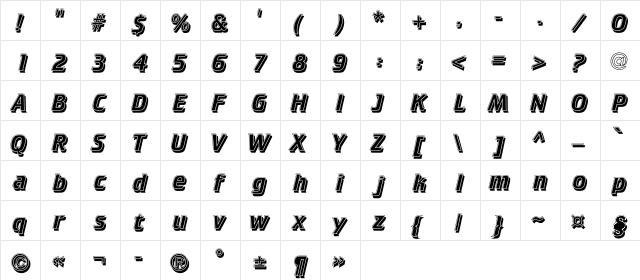
CricketInlineShadow Regular Font Preview
CricketInlineShadow Regular
Design Context for CricketInlineShadow Typeface
CricketInlineShadow is built around its visual character rather than neutral utility — its distinctive forms are designed to make an impression at display sizes.
Font Pairing: Pair with a clean neutral sans-serif for body copy to let CricketInlineShadow's character lead without overwhelming the composition.
Pro Tip: Treat CricketInlineShadow as the centrepiece of your typographic hierarchy. One strong heading set in a decorative face can carry an entire layout.